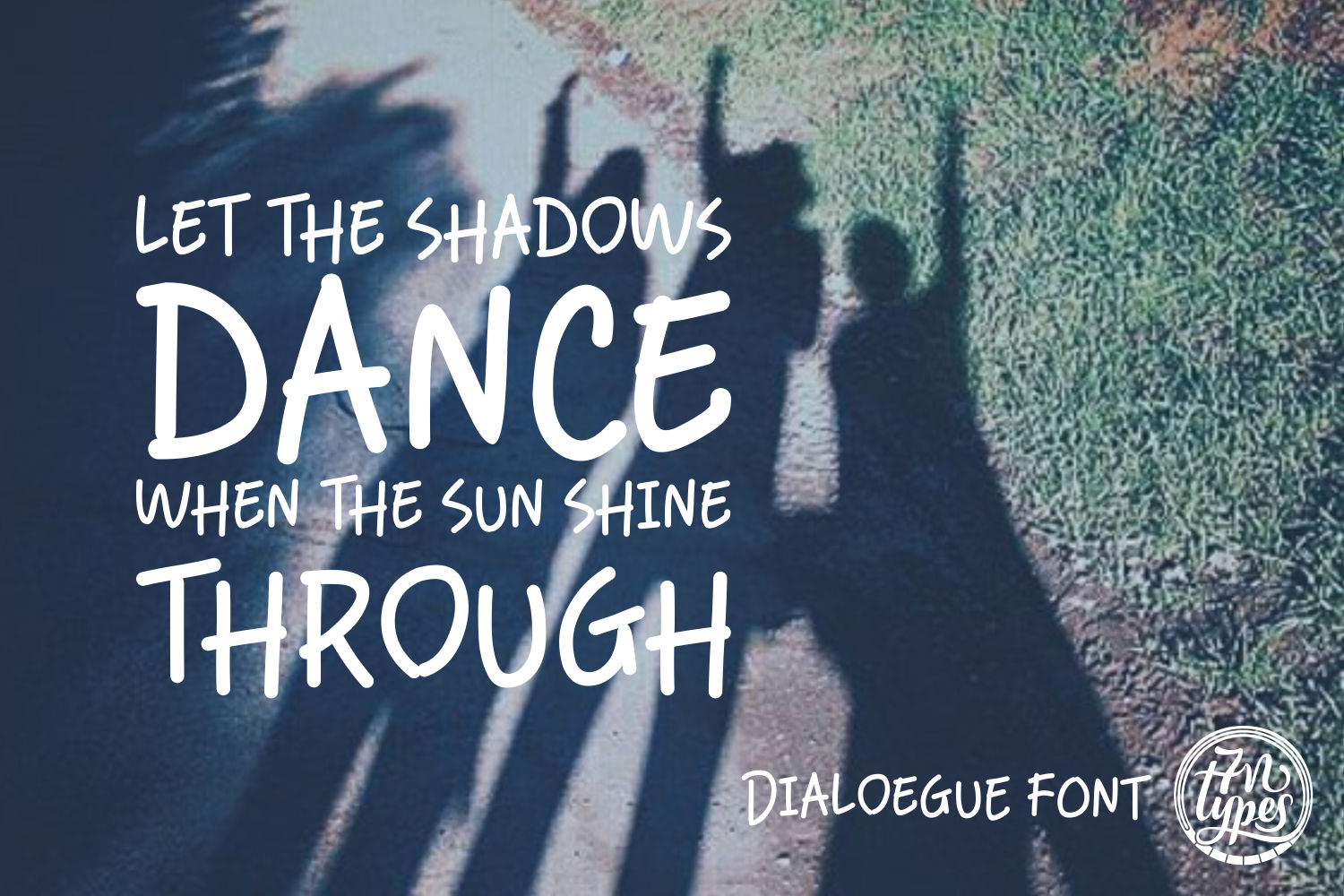
Dialoegue Font
About Dialoegue Font
Dialoegue is a fluid handwritten font created by Situjuh Nazara.
This stunning type features fluid, rounded letters. These playful glyphs are easy to read and as they are quite bold, work in many different designs. No matter if you are printing text on paper, vinyl, apparel or use the font digital, you are sure to leave an image with the Dialoegue font.